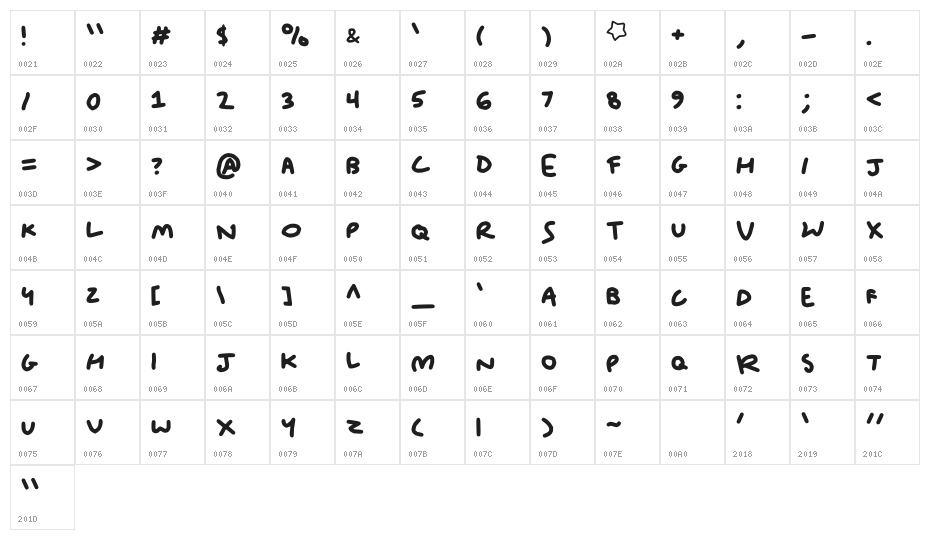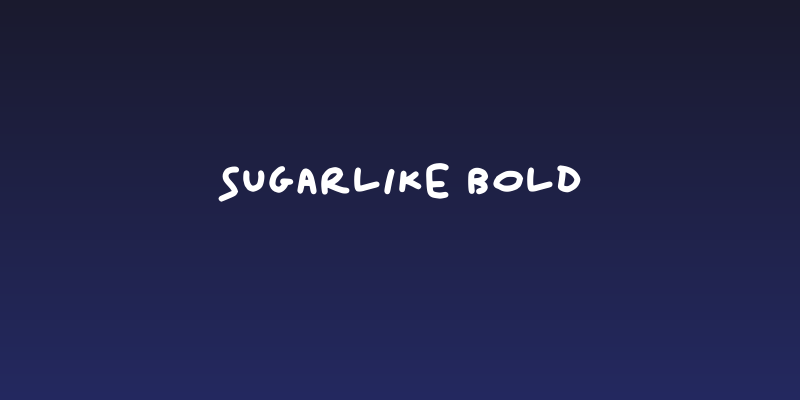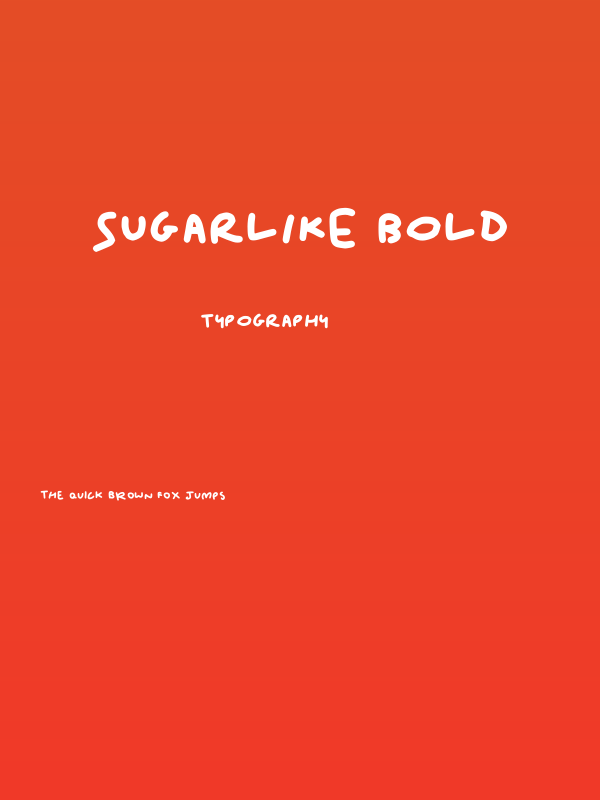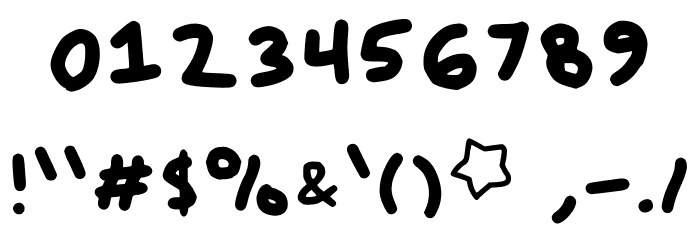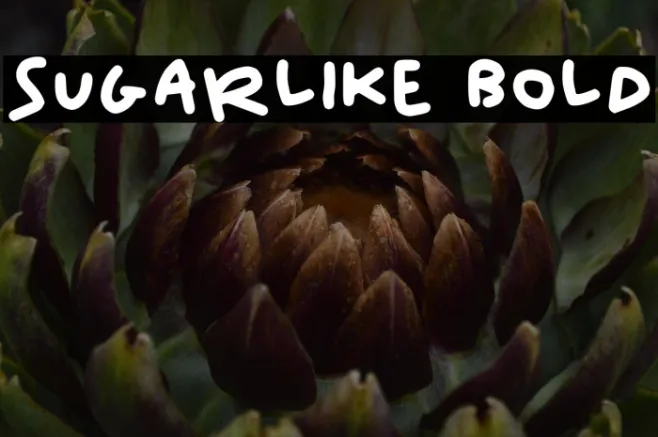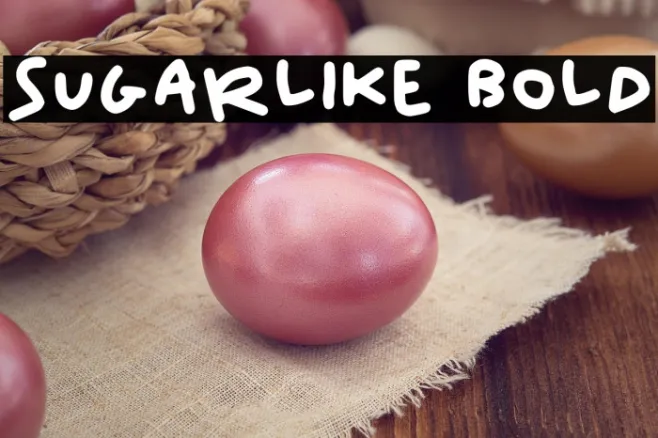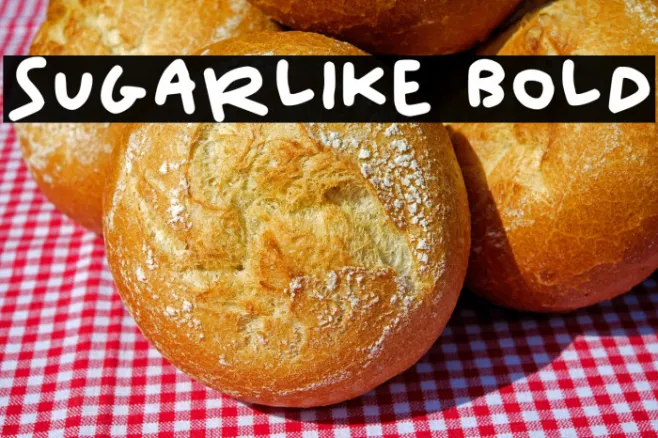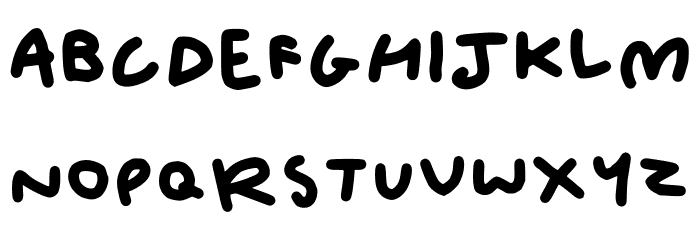
Sugarlike Bold Font
Sugarlike Bold Description
This playful and bold handwritten font exudes a casual and friendly vibe, characterized by its rounded edges and slightly irregular strokes. The letters are thick and consistent in weight, giving a sense of boldness and confidence. The font maintains a uniform baseline, yet each character has a unique flair, adding to its charm and approachability. Its informal style makes it perfect for projects that require a personal touch or a sense of whimsy. The numbers and special characters are designed with the same playful spirit, ensuring a cohesive look across all text elements.
| Use Case | Logos, Headlines, Informal Invitations |
| Proposed Projects | Ideal for children's books, playful branding, greeting cards, and social media graphics. |